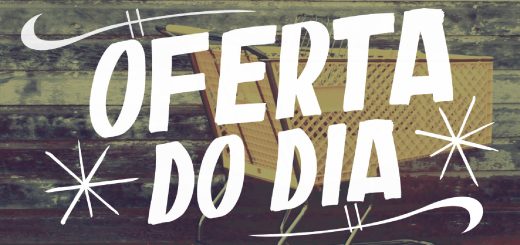
Paporigam
Studio LetterStock
Publisher: LetterStock
*Paporigam Font** This pair was inspired by origami design that i saw on some coffee shop, It was crafted by hand specially to add natural handmade feeling in its brand identity than i make it clean with pentool. **Opentype features**Paporigam font…